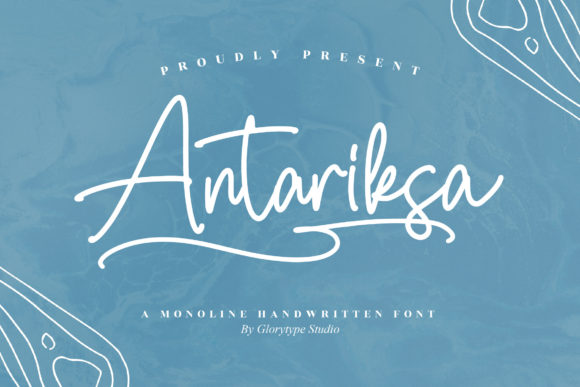
The Elusive Font: My Journey with Antariksa
I’ll never forget the frustration of working on a project, pouring my heart and soul into every detail, only to get stuck on one thing: finding the perfect font. My client wanted something elegant, something delicate, something that would make their brand stand out. And that’s when I stumbled upon Antariksa, a gorgeous script font that would change the game. 🌟
An Honest Review: What I Love and What I Don’t
• ✅ Elegant and delicate design, perfect for projects that require a touch of sophistication
• ✅ PUA encoded, making it easy to access all glyphs and swashes
• ✅ Highly versatile, suitable for a wide range of designs, from branding to packaging
• ⚠️ Limited availability of certain characters, which can be a bit tricky to work with
• ⚠️ May not be the best choice for very large or very small text sizes, as some details may get lost
The Story Behind Antariksa: Designer Inspiration
While the true story behind Antariksa remains a mystery, it’s easy to imagine that it was created by a designer who was inspired by the beauty of handwritten script. Perhaps they spent countless hours pouring over vintage letters and typography, searching for the perfect combination of elegance and whimsy. Whatever the story may be, Antariksa is a true gem that deserves to be celebrated.
A: PUA (Private Use Area) encoding is a way of mapping font characters to a specific range of Unicode values, making it easier to access and use font glyphs. This means that users can easily access all the glyphs and swashes in Antariksa, making it a more versatile and user-friendly font.